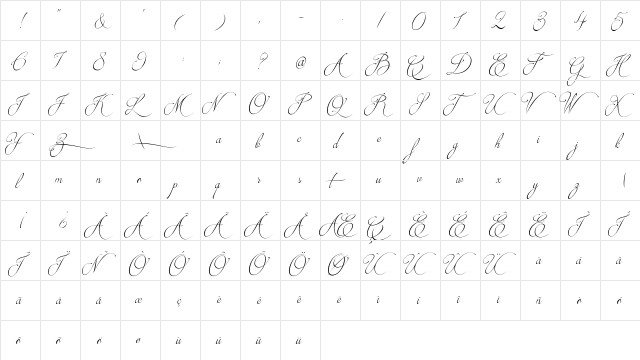
Brotherhood Script Regular
| Foundry | Youssef Habchi |
| Designer | Youssef Habchi |
Design Context for Brotherhood Script Typeface
Brotherhood Script brings a calligraphic fluidity to the page — its connecting strokes and expressive curves give it an unmistakably human quality.
Font Pairing: Combine Brotherhood Script with a simple geometric sans for maximum contrast — the tension between flowing curves and clean structure is a classic typographic pairing.
Pro Tip: Pair Brotherhood Script with a clean sans-serif for supporting text. The contrast between fluid script and geometric structure creates an elegant typographic hierarchy.